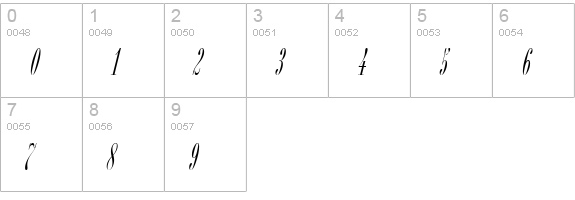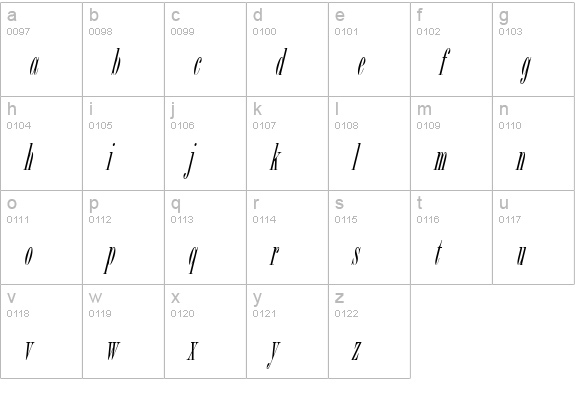
Bordeaux ICG Italic is a distinctive, italic variant in the Bordeaux typeface family \xE2\x80\x94 well suited to design and typography projects.
Bordeaux ICG Italic font exudes elegance and sophistication with its sleek and stylish design. The flowing italicized characters bring a touch of sophistication to any project, making it perfect for luxury brands, fashion magazines, and upscale events. The unique design of Bordeaux ICG Italic font adds a touch of class and sophistication to any design project, making it a perfect choice for those looking to make a statement. Best of all, Bordeaux ICG Italic font is available for free download at FontsMarket.com. This means you can easily access this stunning font and elevate your design projects without breaking the bank. Don't miss out on this opportunity to enhance your designs with the timeless beauty of Bordeaux ICG Italic font. Download it for free today and add a touch of elegance to your next project!